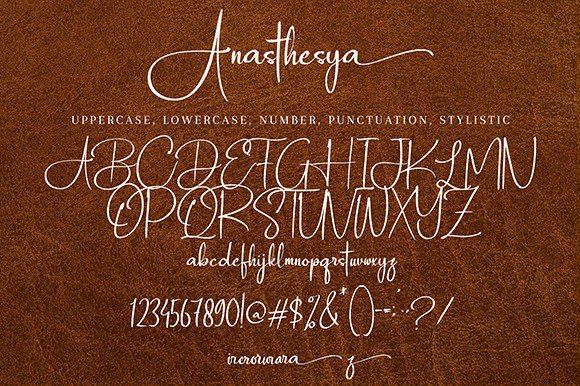
Anasteshya Font
About Anasteshya Font
Anasteshya is a font that radiates loveliness and delicacy, presenting a script style that embodies elegance and class. Meticulously crafted for those seeking a beautiful and refreshing aesthetic in their designs, Anasteshya is more than just a font—it’s a testament to sophistication.
The script style of Anasteshya carries a sense of grace and refinement, making it well-suited for a variety of design applications. Whether you’re working on invitations, branding materials, quotes, or any other project where an elegant touch is desired, Anasteshya delivers a look that is both captivating and timeless.
Imagine Anasteshya gracing the pages of wedding invitations, adding a touch of romance and sophistication to the celebration. Picture it on branding materials, where its lovely and delicate script elevates the visual identity of a brand. Whether applied to quotes or any other creative project, Anasteshya is designed to be a font that brings beauty and refreshment to your designs.
In summary, Anasteshya is more than a font—it’s a refined and versatile tool crafted to enhance the aesthetics of your projects. With its lovely and delicate script, it invites you to infuse elegance into your designs effortlessly. Let Anasteshya be the choice that elevates your creations with timeless beauty and a refreshing look.